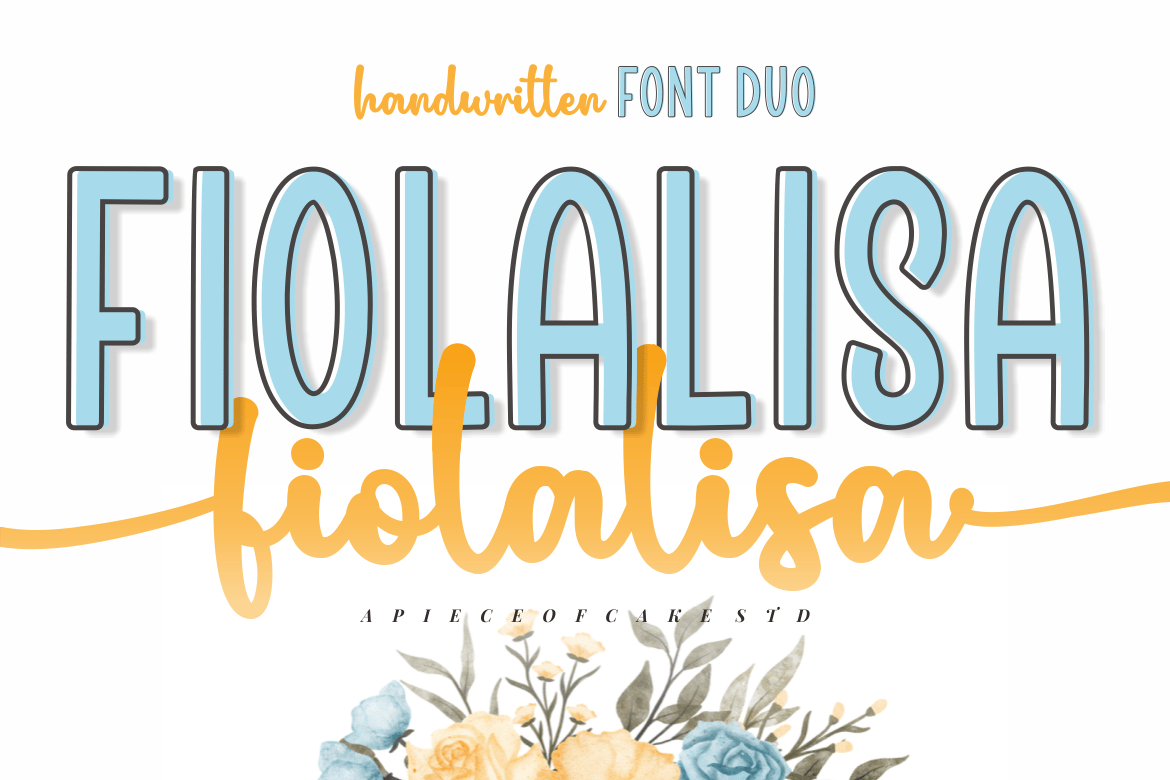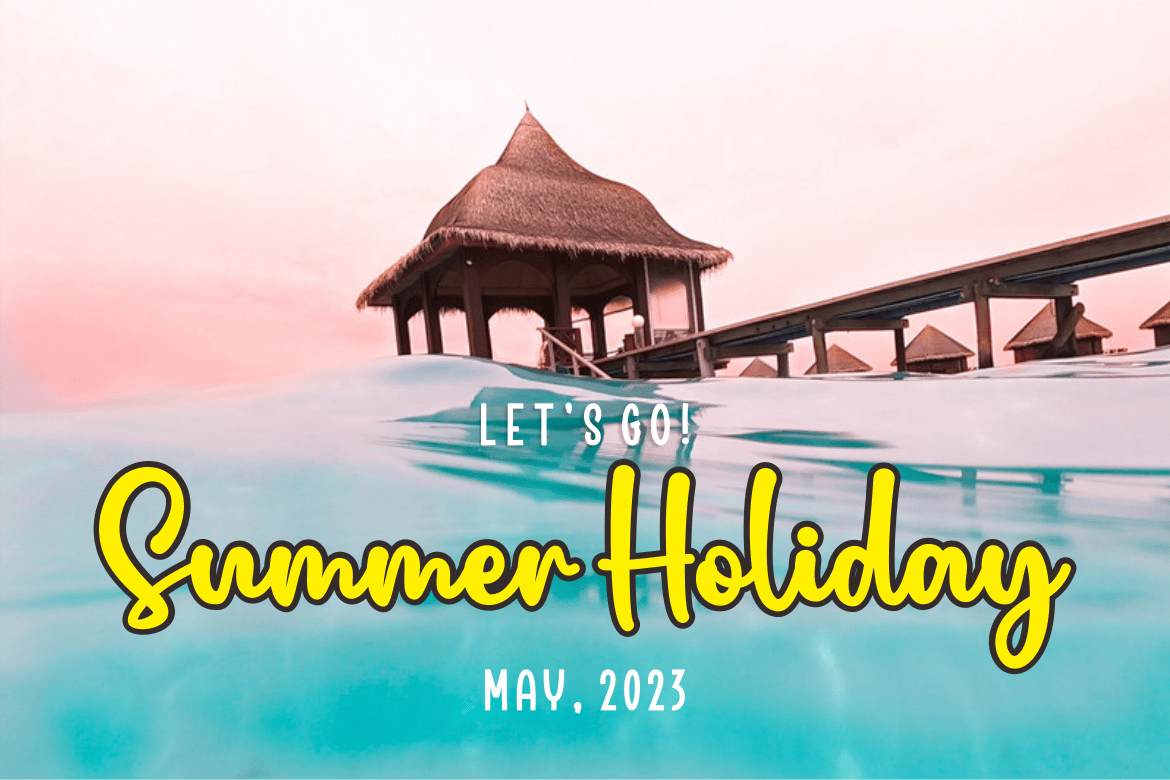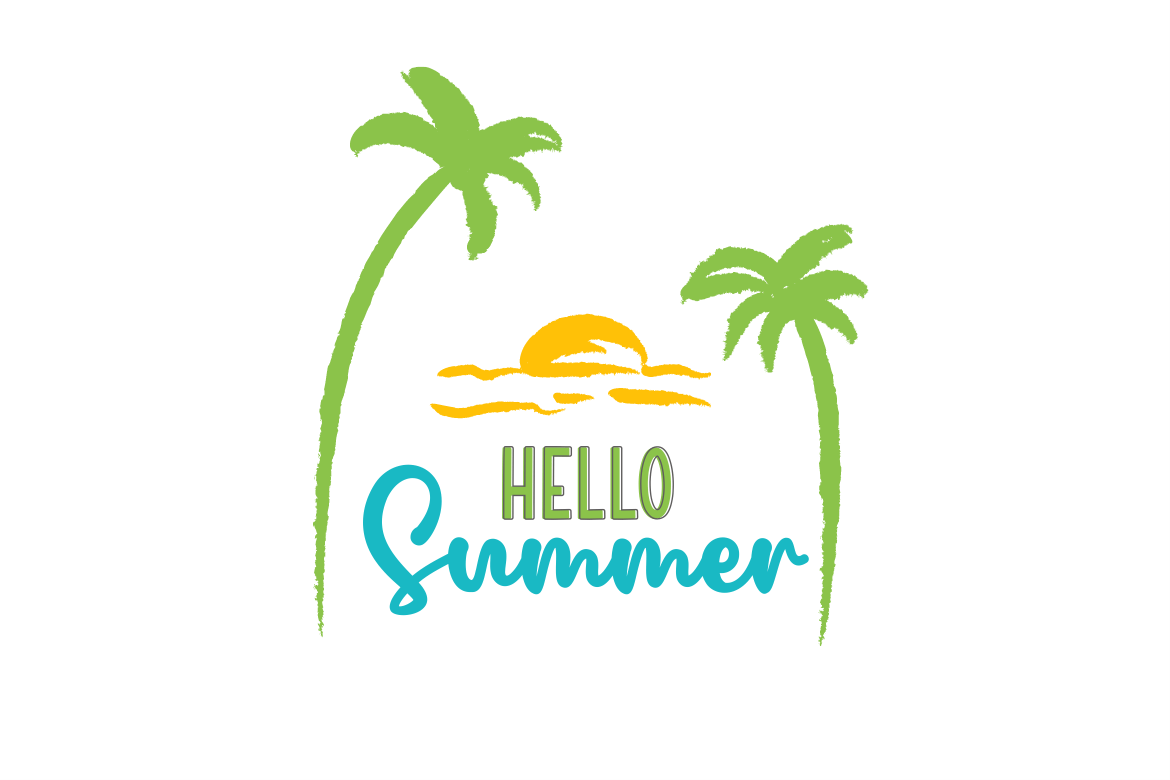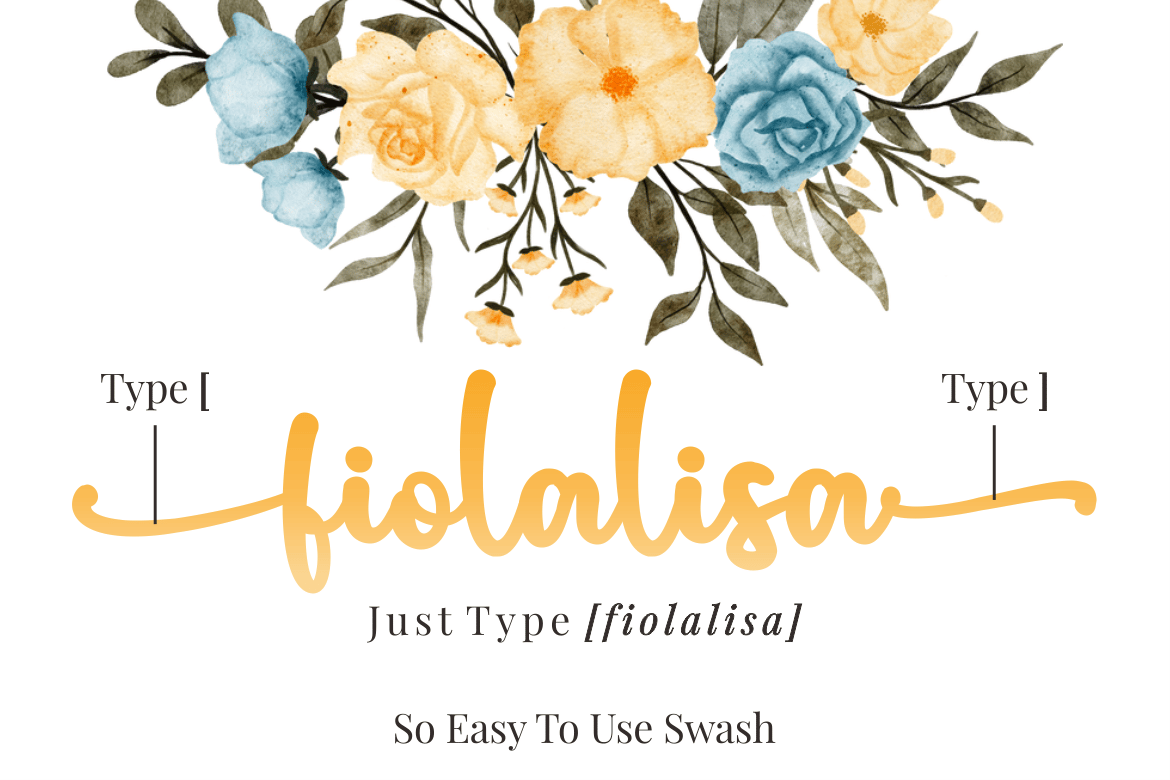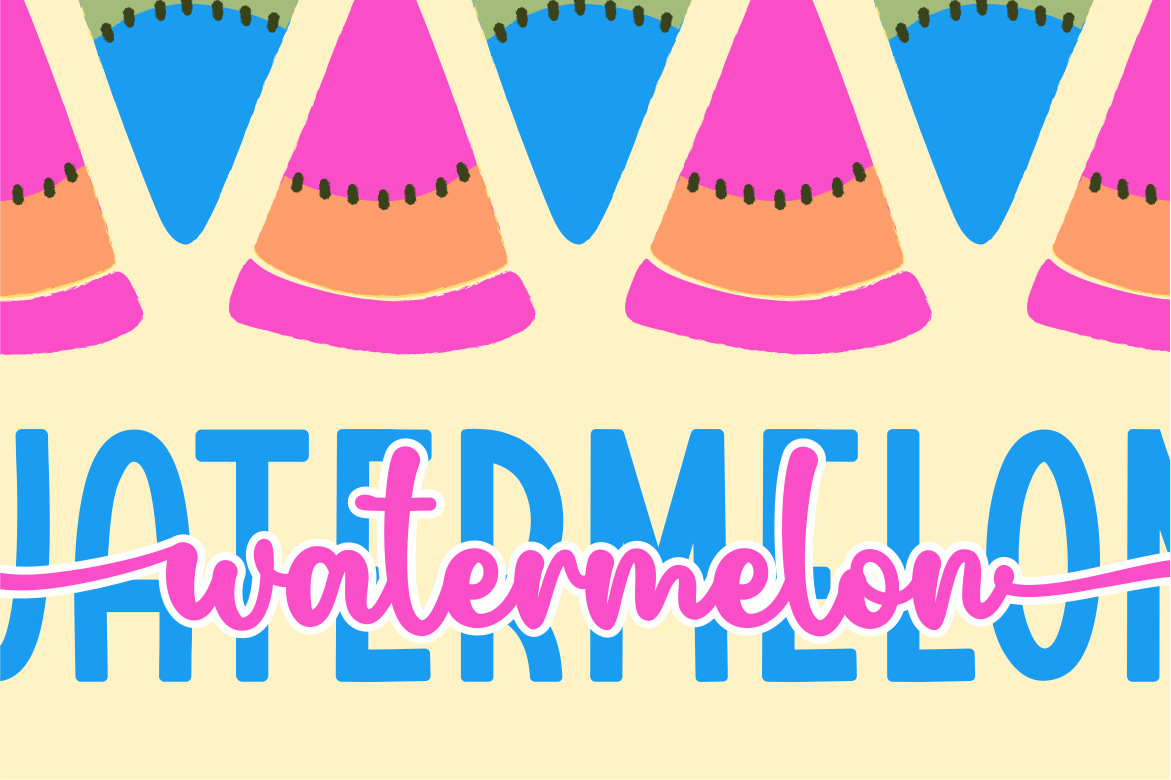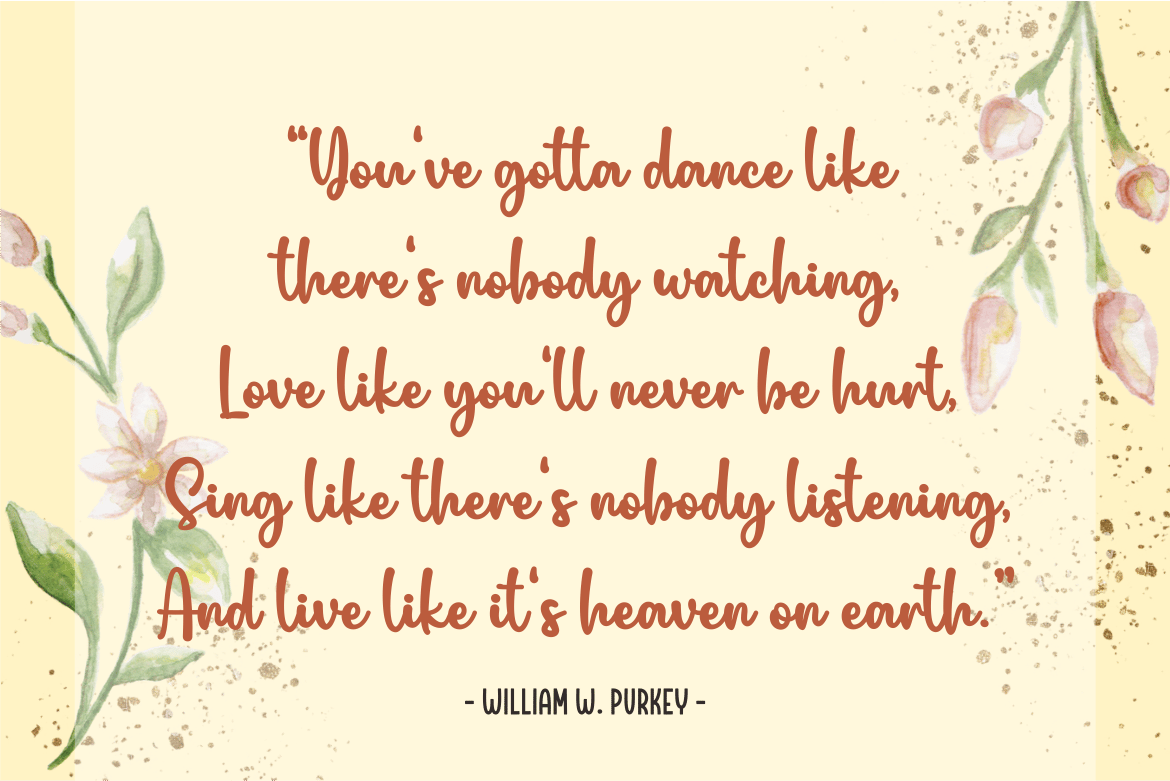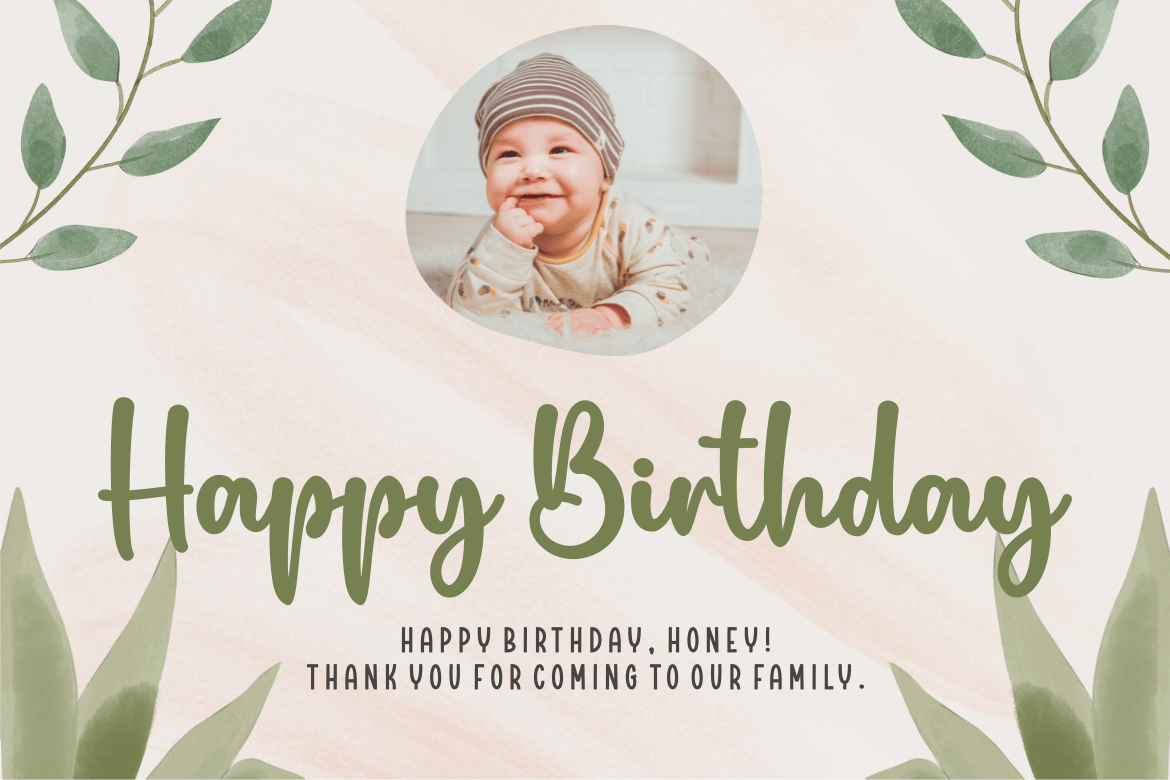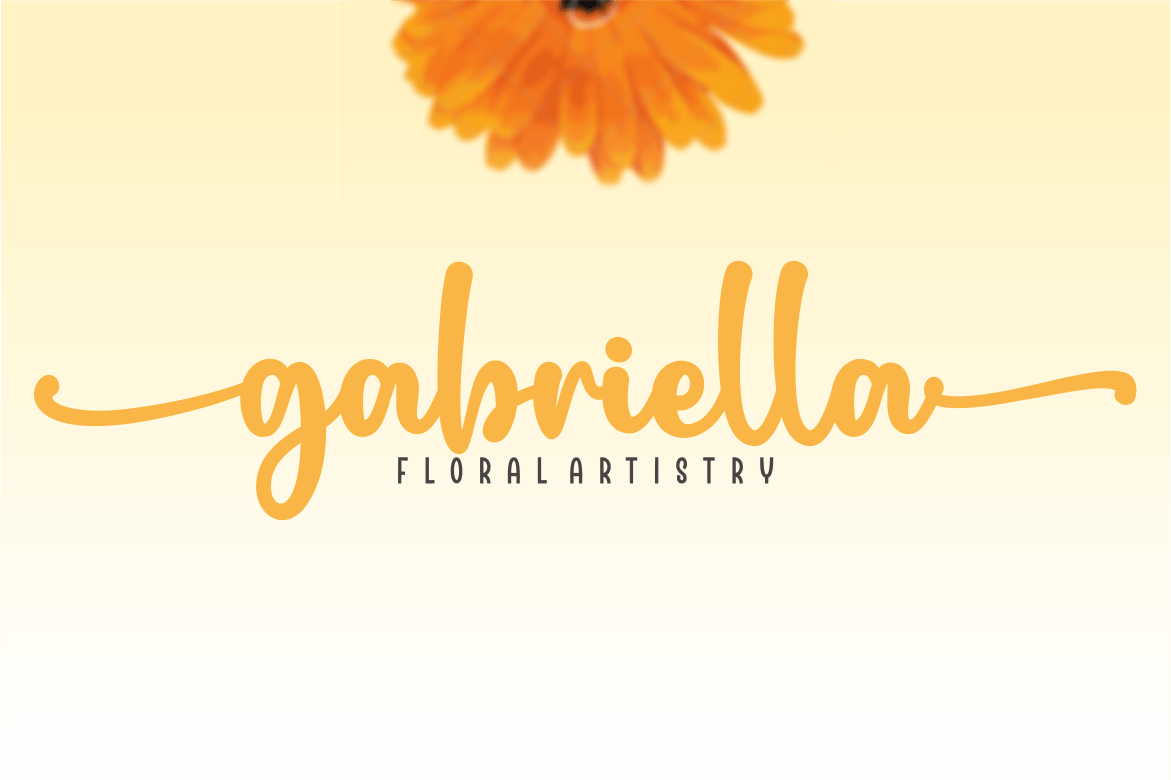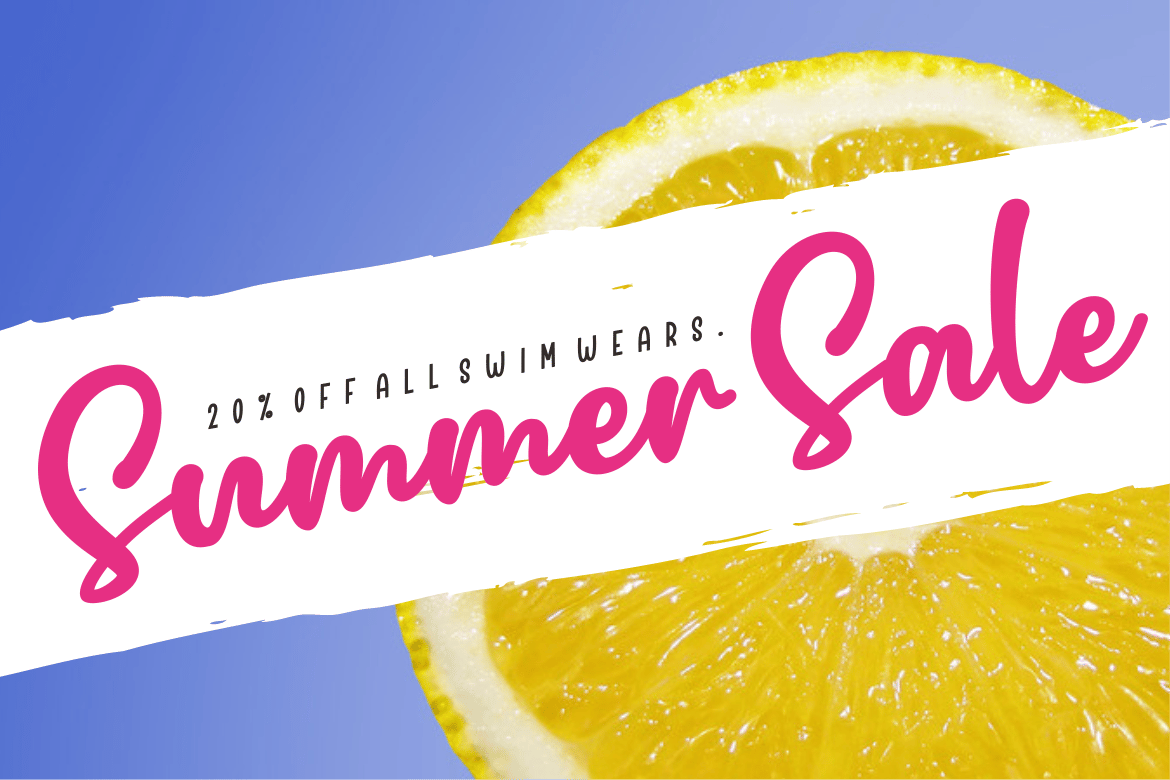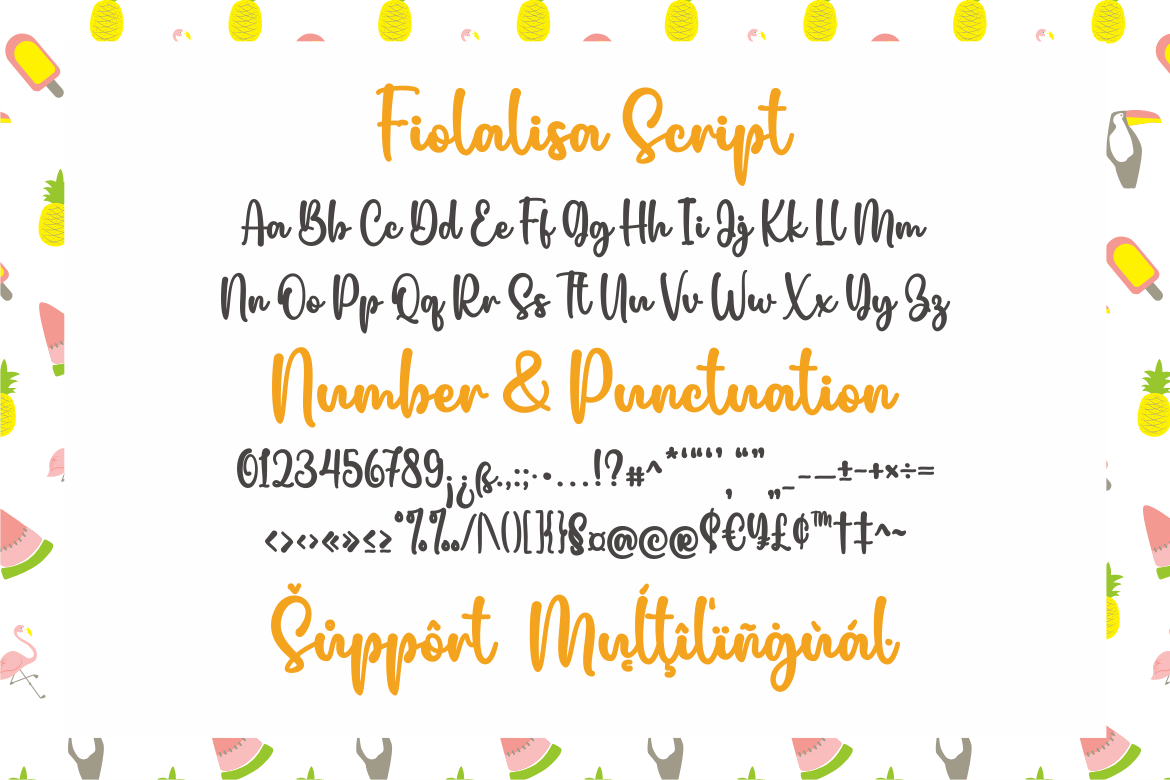
Fiolalisa – A Duo Font
Introducing, Fiolalisa is a beauty script font suitable for your design project needs, such as; wedding themes, valentine’s themes, social media posts, quotes, overlays on images, tagline logos, posters, print needs, website banners, and more.
- A set of uppercase and lowercase glyphs
- Number, symbol, and punctuation
- Some Swashes
So Easy to Use
Access Swashes by keyboard
- key bracketleft ‘ [ ‘ to feature beginning swash
- key bracketright ‘ ] ‘ to feature ending swash
For Example: type [love+you]